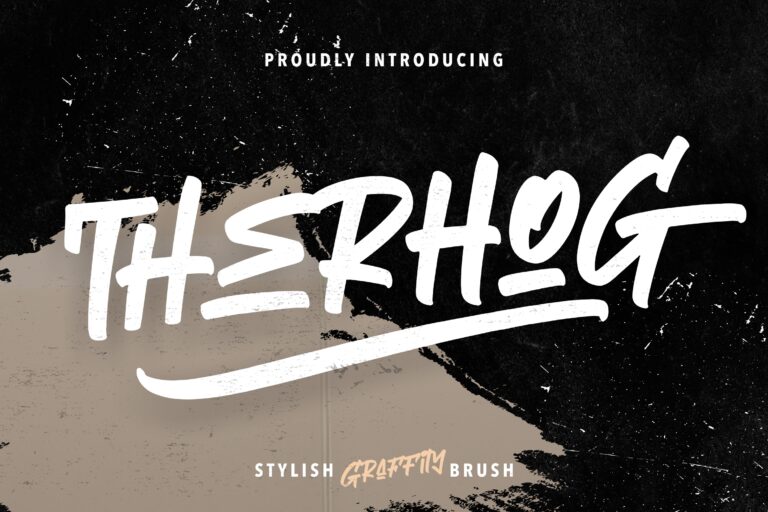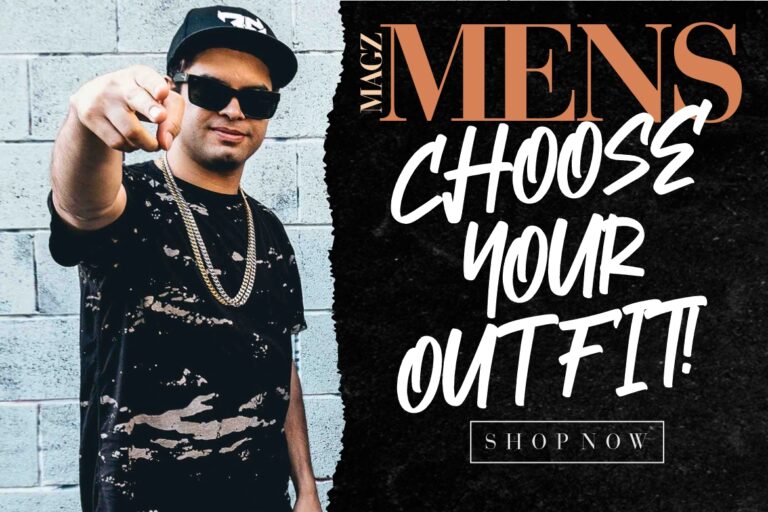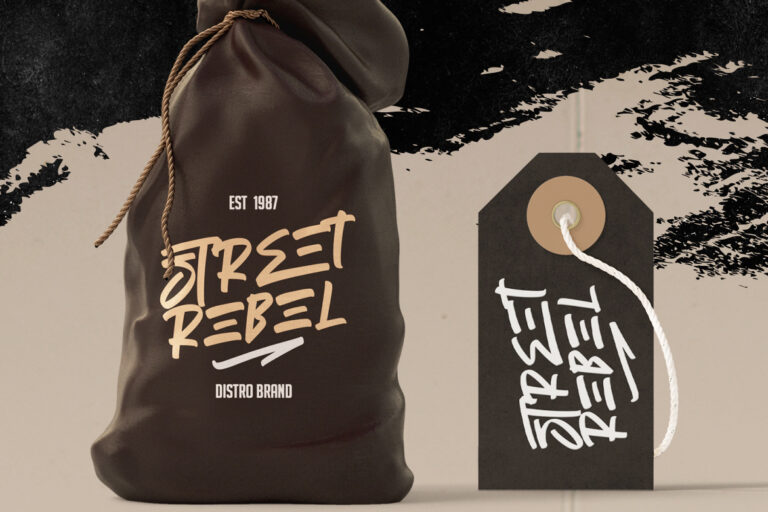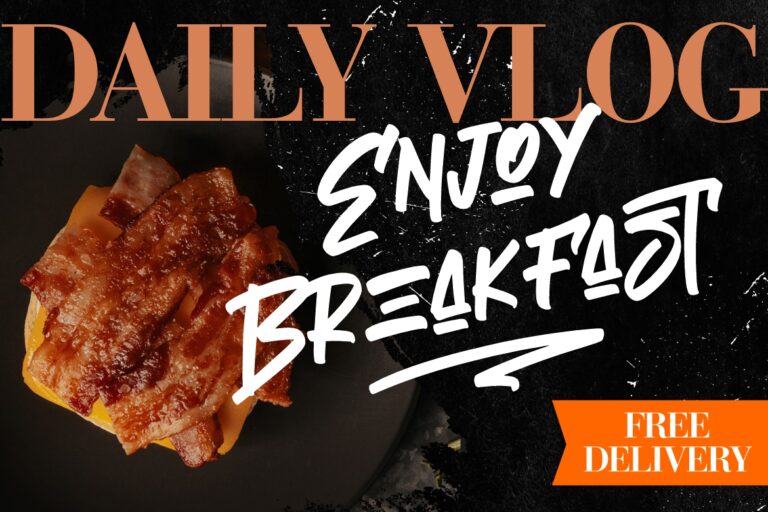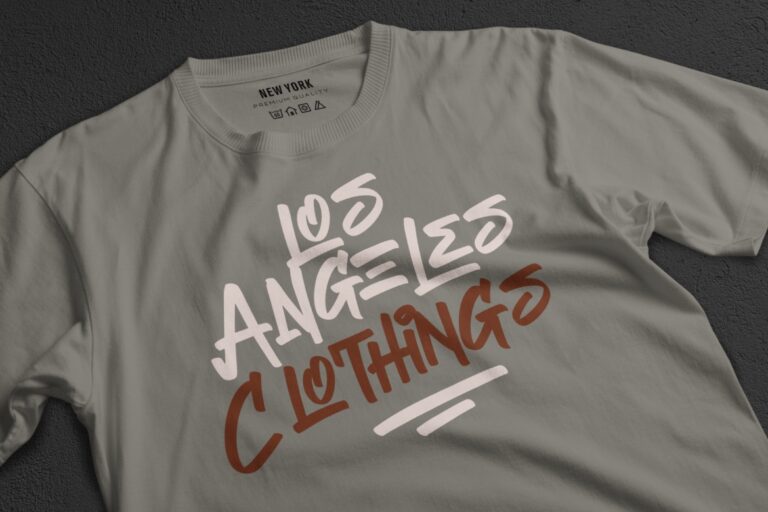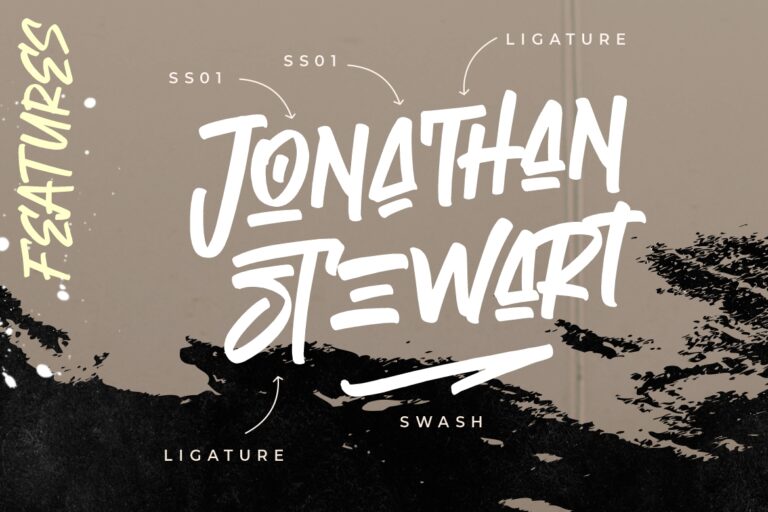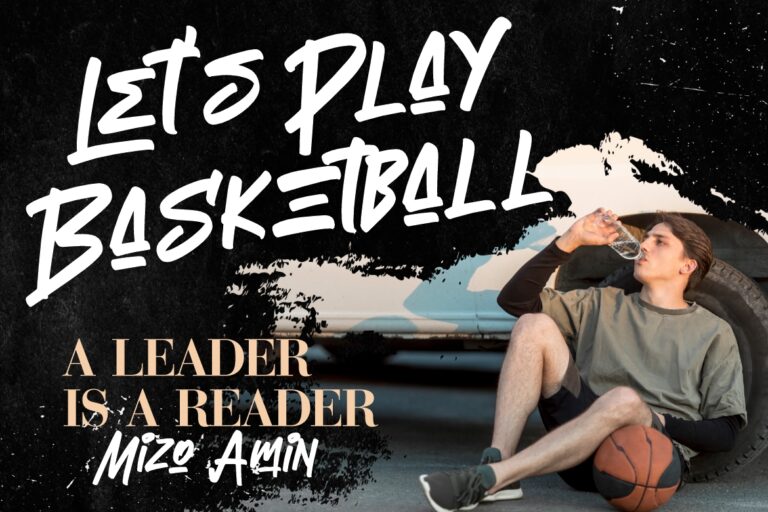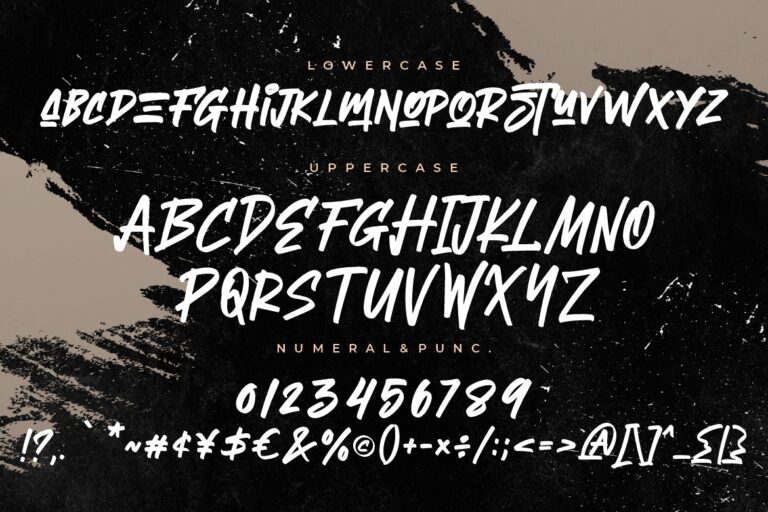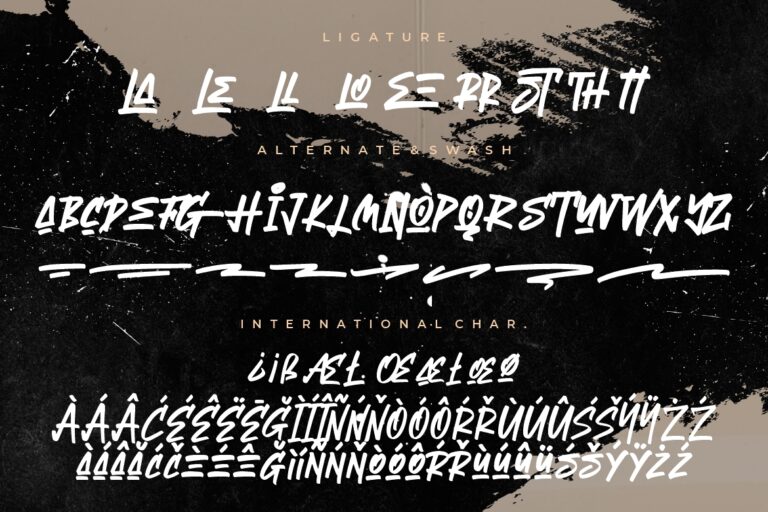
Therhog is stylish graffiti brush inspired from graffiti street project art.
Therhog would perfect for photography, watermark, social media posts, advertisements, logos & branding, invitation, product designs, label, stationery, wedding designs, product packaging, special events or anything that need handwriting taste.
Therhog Graffiti Brush Font